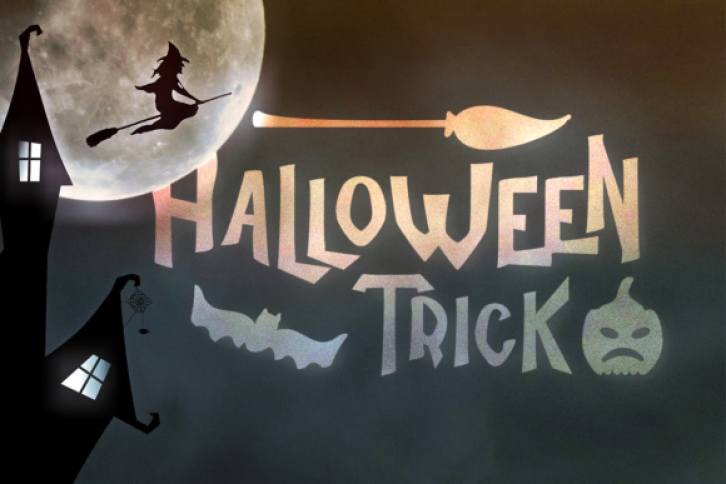
Halloween Trick is the perfect font for the scariest time of the year.
Inside the font, you will not only find stunning letters to create Halloween decorations, but the numerals have been replaced with scary objects, such as bones, spider webs, skulls, brooms and more! Create Halloween designs in an instant!